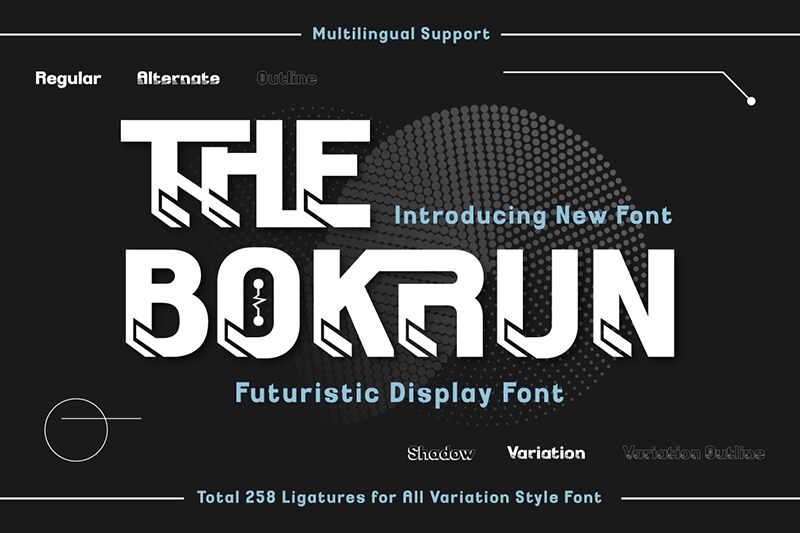
THE BOKRUN Trial SHADOW
The Bokrun Shadow font from Twinletter is a bold modern display font with disproportionate letter strokes for imbalanced appearances. Deformed and semi-geometrical shapes dominate the characters’ interesting designs. You can brew up a thrilling imagination-activated project thanks to this free supernatural-looking gem.
The font is free and would be the perfect addition to comics, animated movies posters, games, video games, game UI designs, book covers, elementary school products packaging boxes design ideas or magazine headlines. Explore limitless possibilities with this breathtaking typeface in your arsenal.